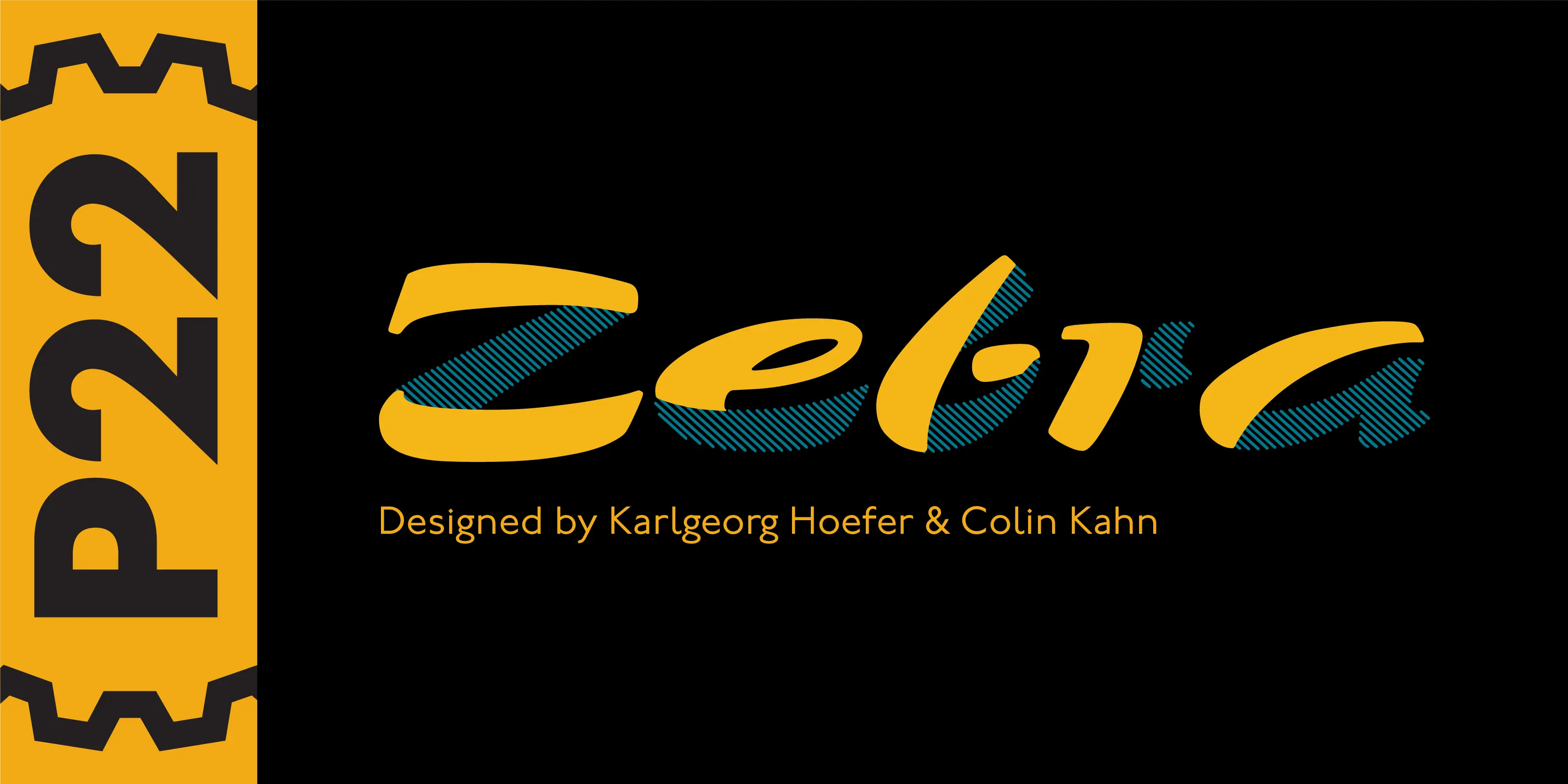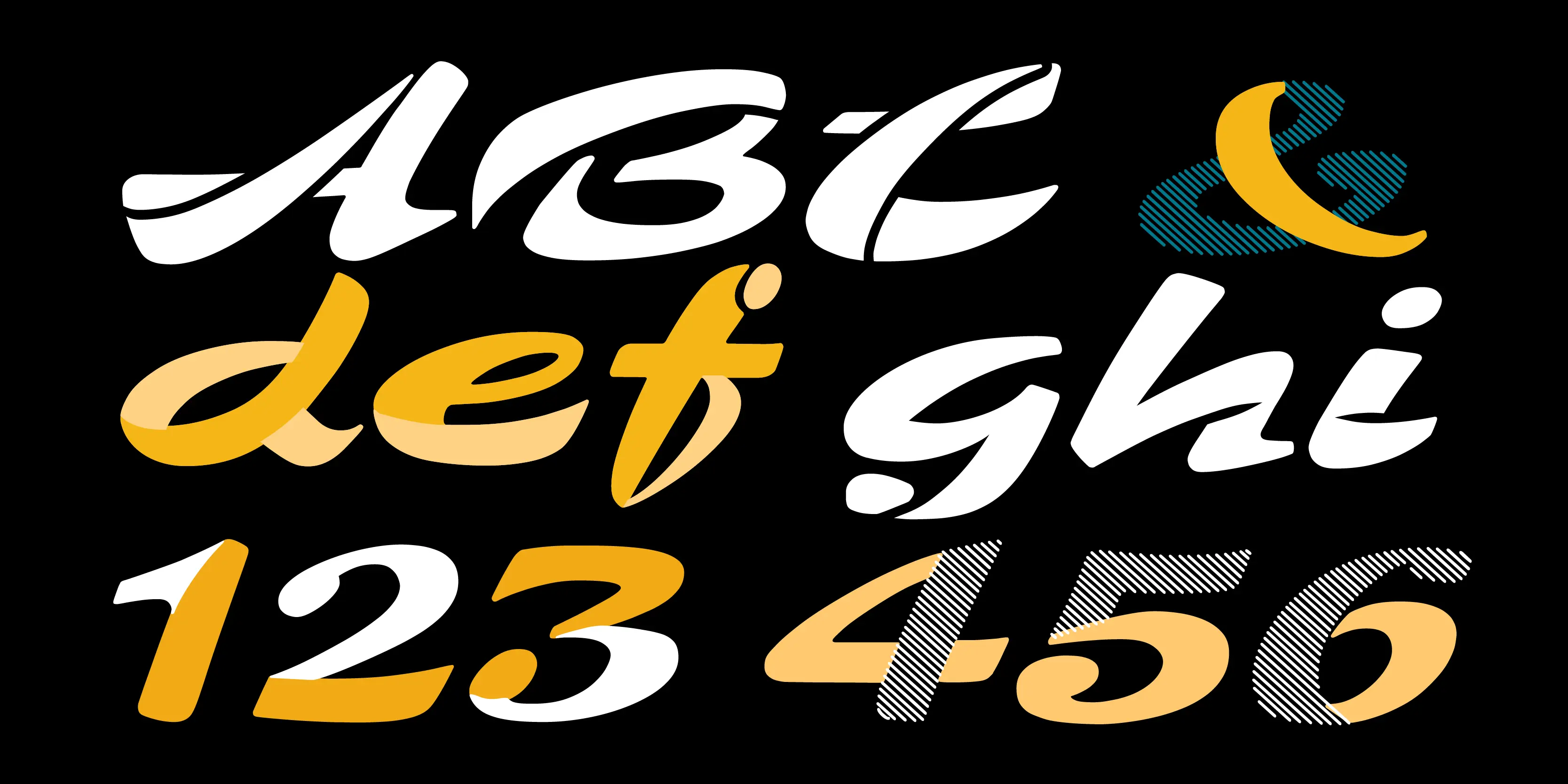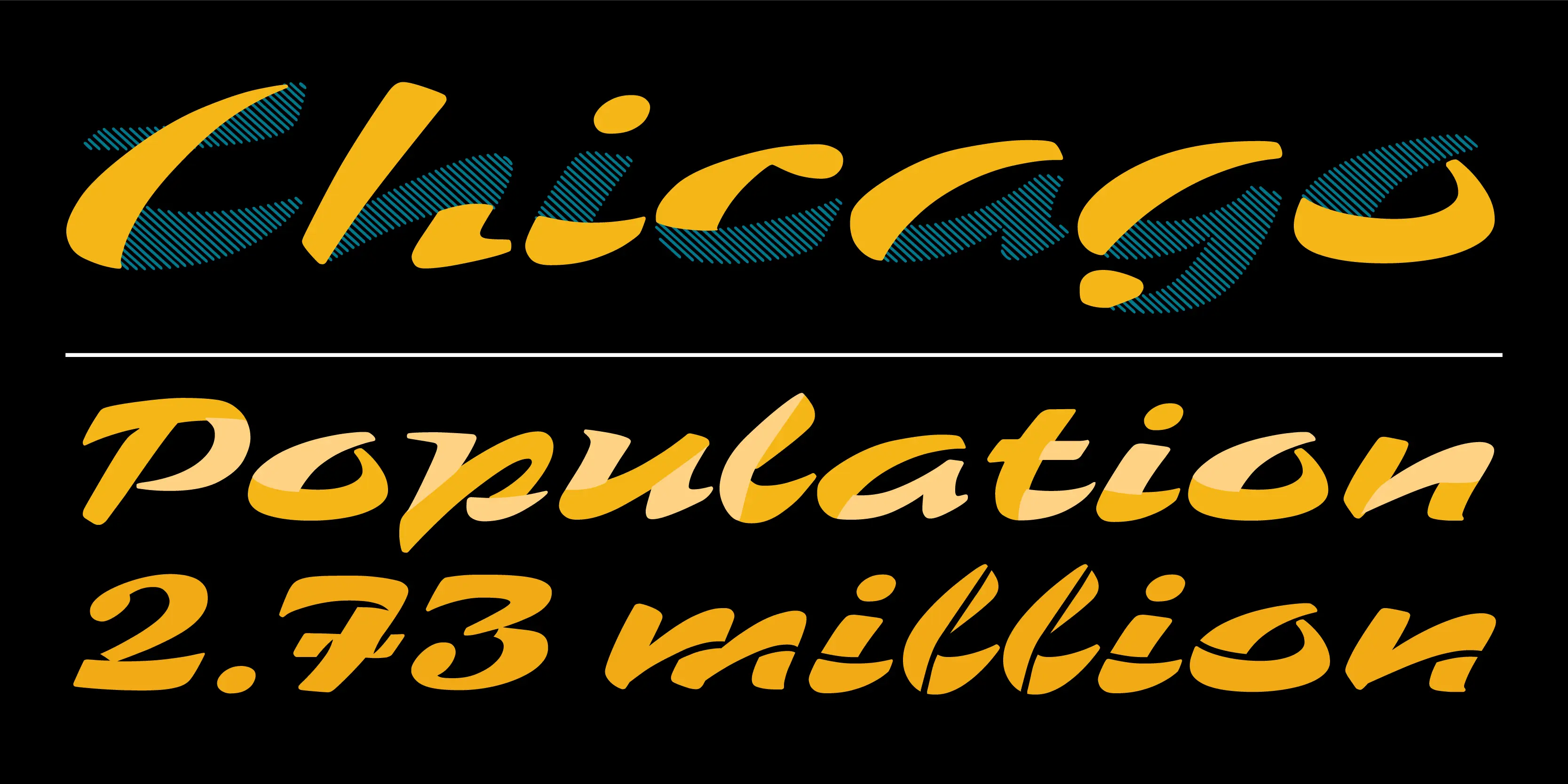
Zebra Font Family
Zebra Linecut Color
Zebra Wedgecut Color
Zebra A
Zebra B
Zebra C
Zebra Line Cut
Zebra Stencil
Zebra Wedge
Zebra
Zebra was originally designed by Karlgeorg Hoefer in 1965 for the Stempel foundry in Germany. This unique font was designed as a two-color script face and is now available digitally for the first time. The P22/IHOF release presents six separate fonts based on the original painted drawings and Stempel proofs.